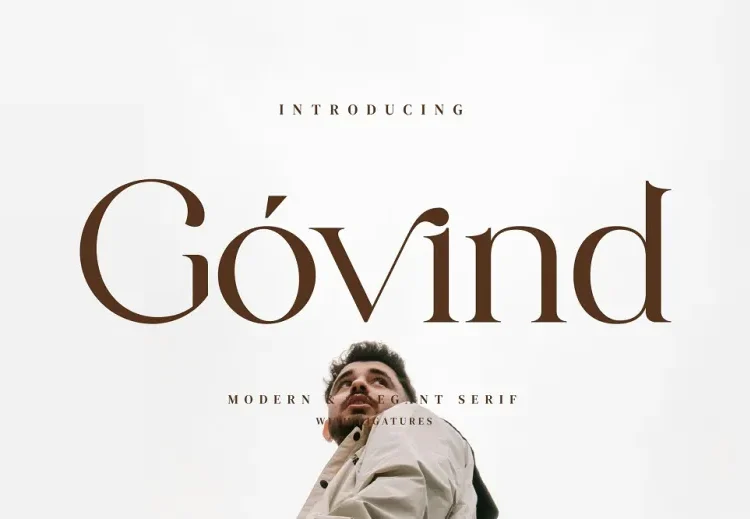
Govind Font
Govind Stylish Ligature Serif Typeface is inspired by the renowned minimalist logo style, designed to bring a touch of sophistication and modernity to your projects. This font is ideal for a variety of design applications, including templates, brochures, videos, advertising, branding, and more. Its elegant ligature design and refined serif elements make it a versatile choice for creating visually striking and professional-looking materials.
Govind’s unique style adds a layer of class and distinction, making it perfect for high-impact branding and advertising. Whether you’re working on a logo, promotional content, or any other design that requires a sophisticated and contemporary look, Govind delivers with its stylish and minimalist approach. Its clean lines and thoughtful ligature combinations ensure that your text will stand out with a sense of elegance and modernity.
This font’s adaptability makes it a valuable addition to your design toolkit, providing you with the flexibility to create polished and professional content across various media. Govind’s distinctive character and stylish ligatures enhance the visual appeal of your designs, making it an excellent choice for projects that demand a refined and unique touch.